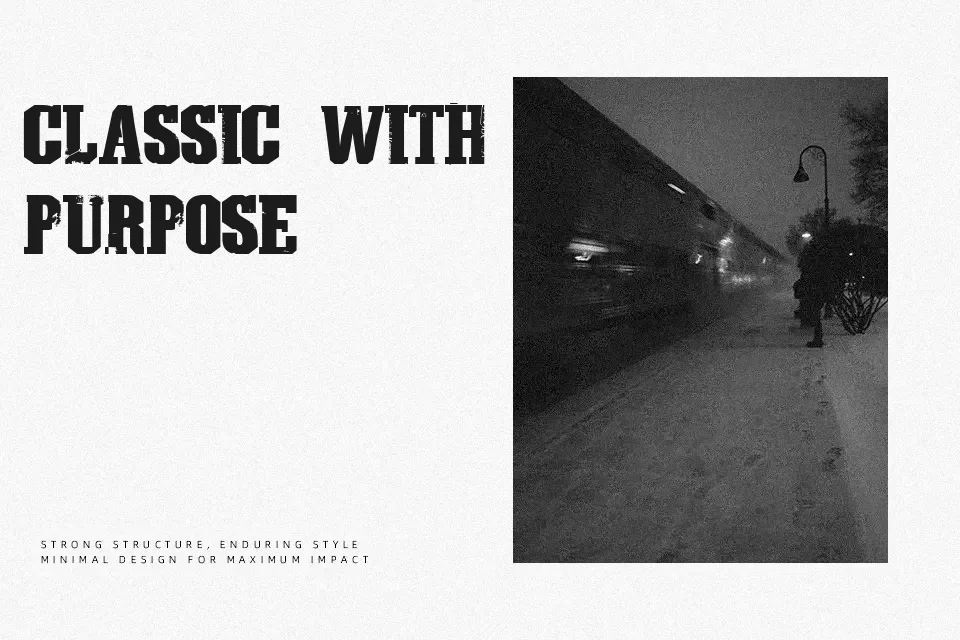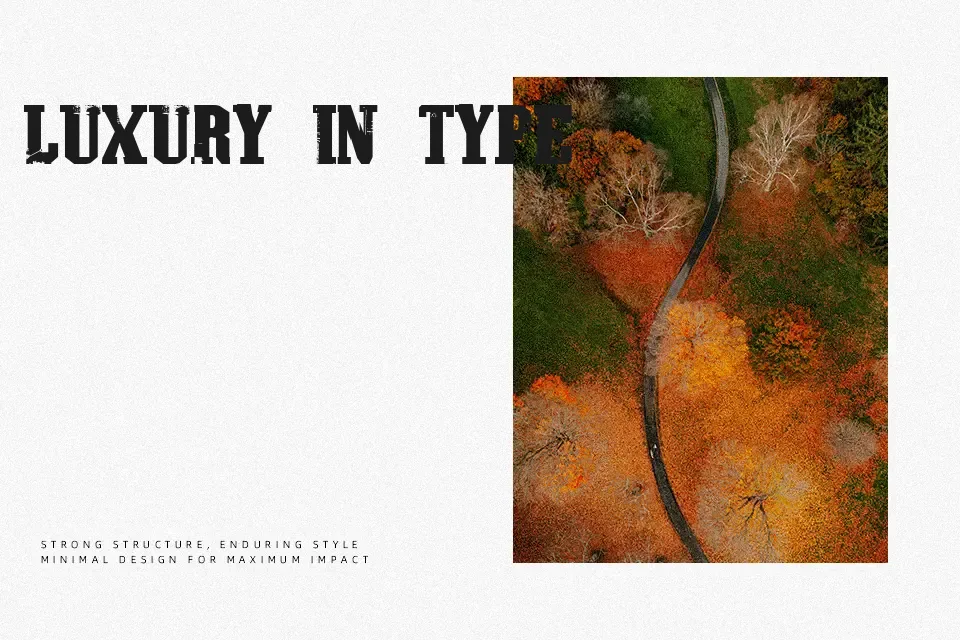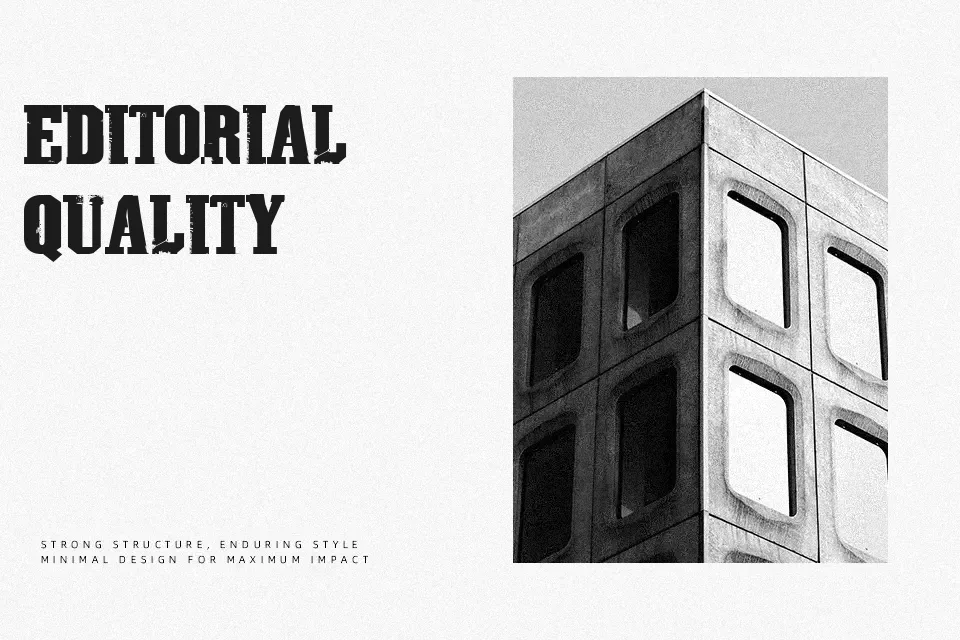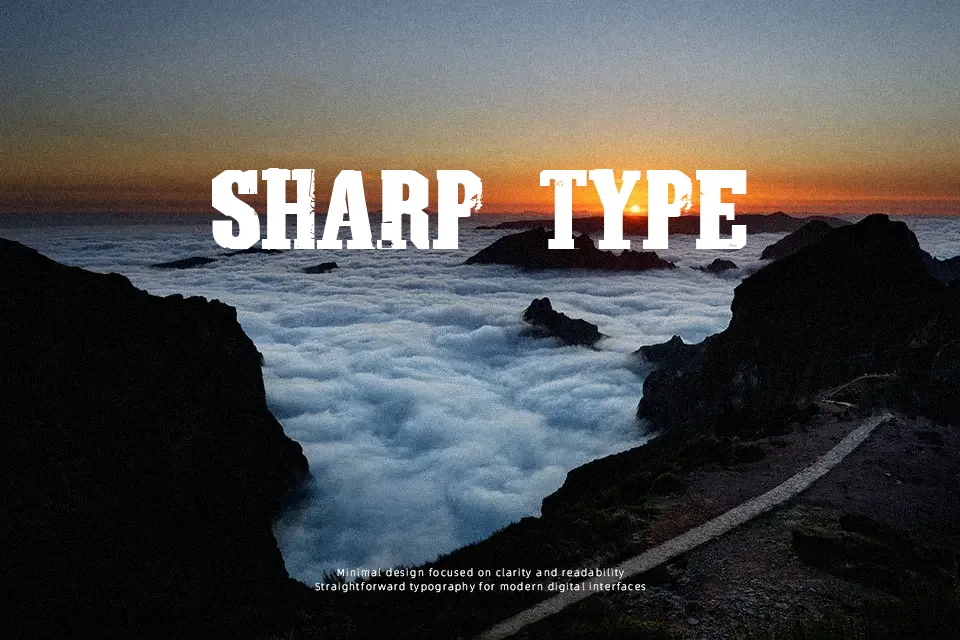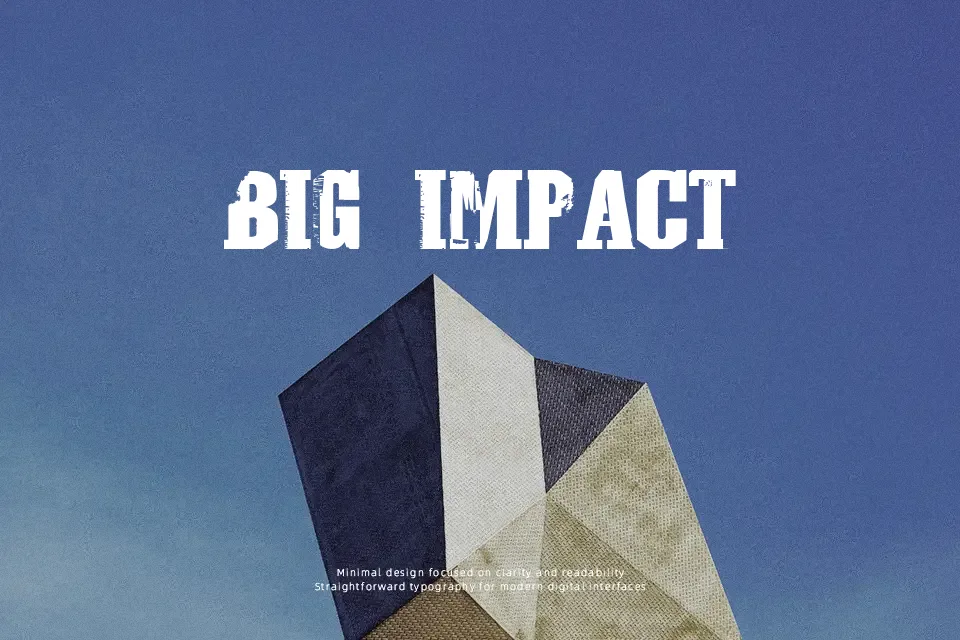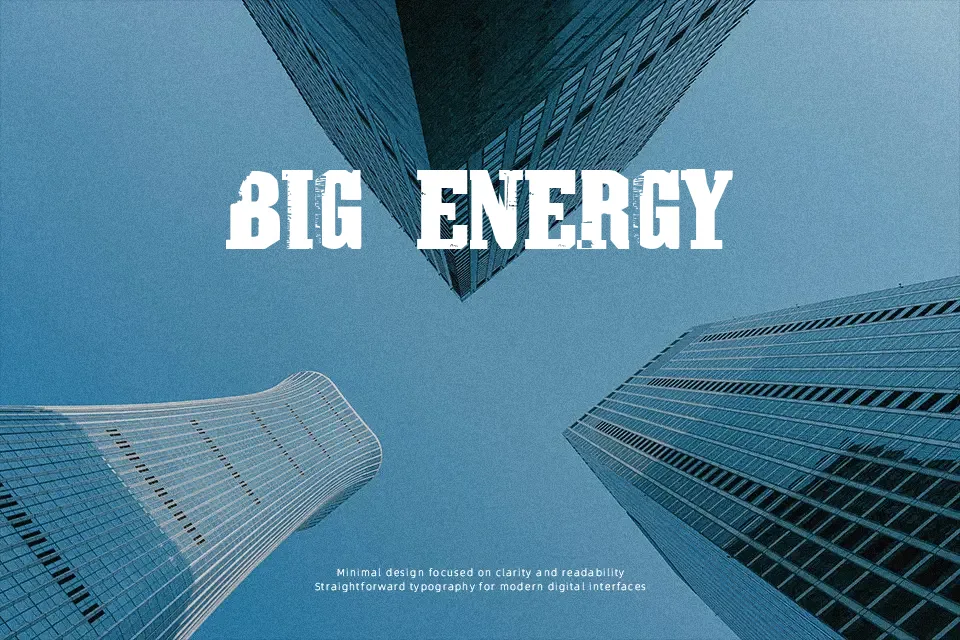
Athletic Town Font
Built with chunky, uppercase block shapes and a compact glyph set, Athletic Town leans heavily into vintage varsity aesthetics — the kind of lettering you’d expect stenciled across a gym locker or a high school squad hoodie. Strokes are thick and uniform, spacing is tight enough to feel cohesive without becoming a visual pile-up. It hits its stride on posters, team name treatments, and sports-event signage where raw authority matters more than refinement. The character set is quite limited (53 characters, 27 unique glyphs), which means extended multilingual content or punctuation-heavy copy will run into gaps fast. For headline-only, all-caps contexts, it delivers the rugged visual weight it promises — but using it below 36pt noticeably flattens its presence.
Best For:- Sports team logo wordmarks
– Tournament bracket headers and event posters
– School or amateur league merch graphics
– Retro gym signage and athletic apparel branding
Not Ideal For:- Body text or paragraphs of any length
– Corporate or professional identity systems
– Multilingual content requiring extended character support
– Digital UI labels or small-size applications
Perfect for branding, headline, and logo, with a bold and condensed style.